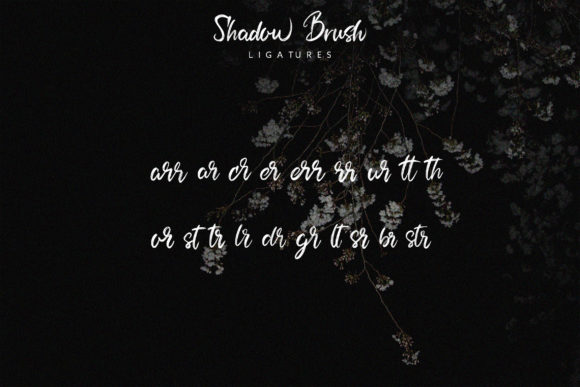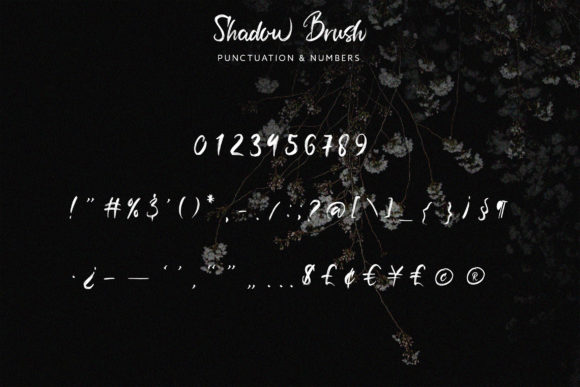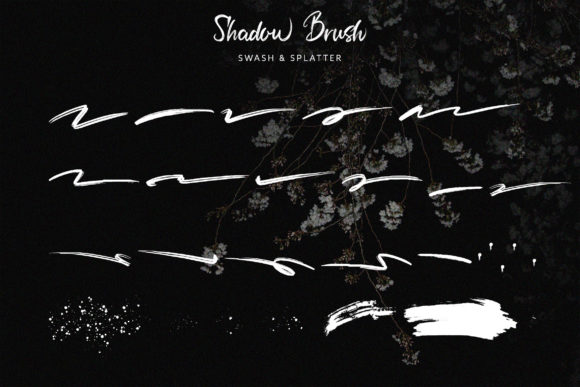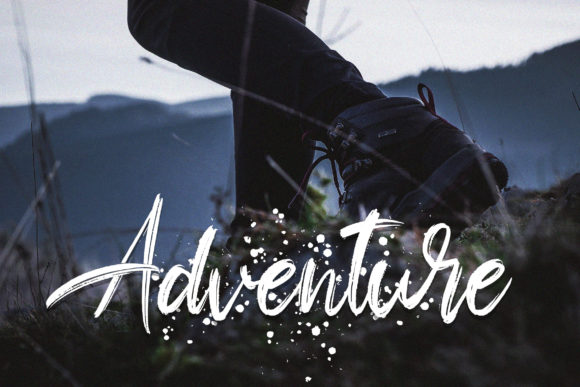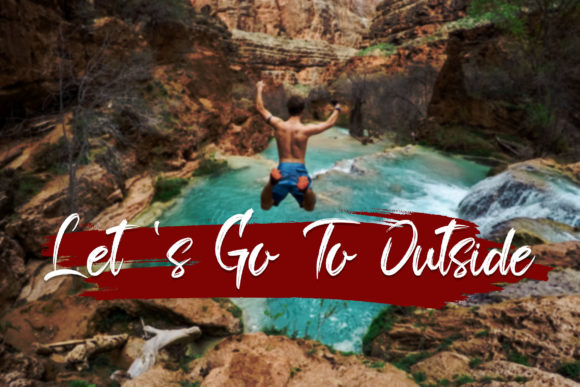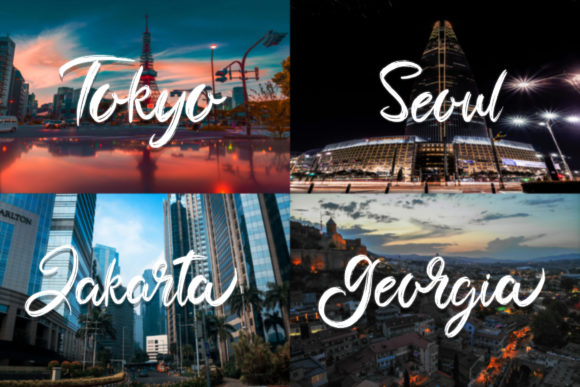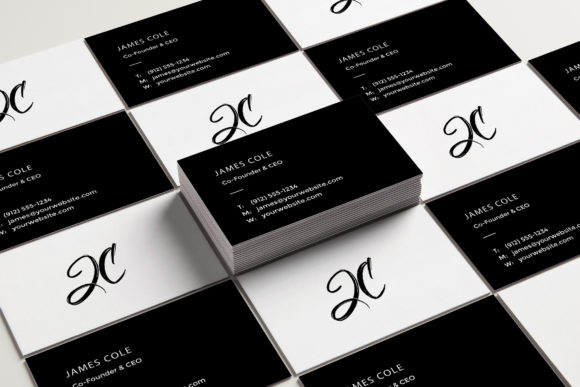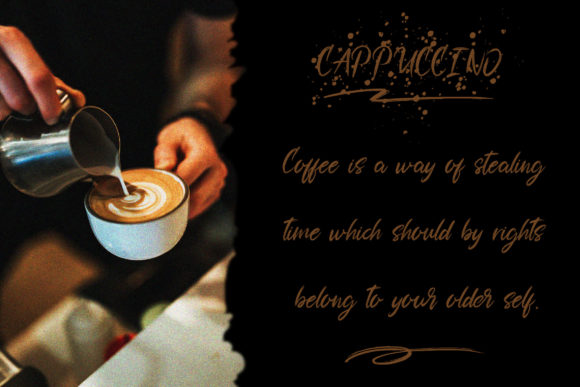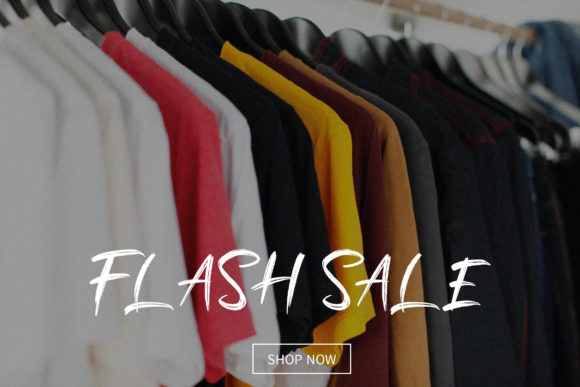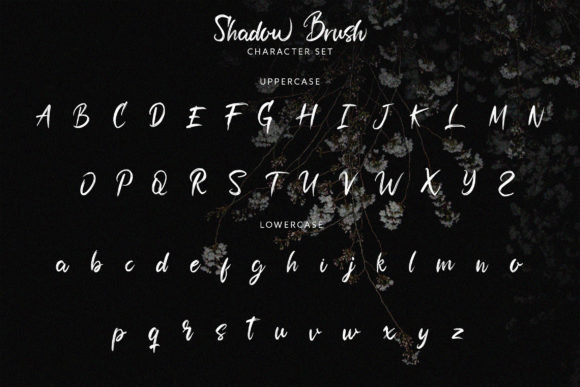
Shadow Brush Font
About Shadow Brush Font
Shadow Brush is a fun and playful handwritten font with a cool feel. It will add an authentic flavor to any design project!